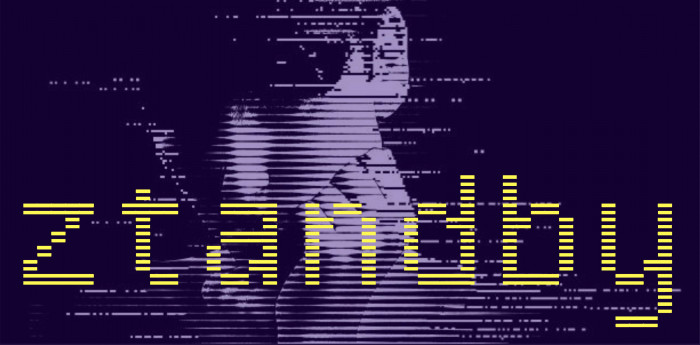
• Initially inspired by SB Standard font (2013, Craig Staiton) with many modifications and recreated glyphs... And made to saving half the ink when you print your text with it, which is very important in today's times, you know :))
Initially inspired by SB Standard font (2013, Craig Staiton) with many modifications and recreated glyphs... And made to saving half the ink when you print your text with it, which is very important in today's times, you know :))
@elmoyenique - Congratulatoins on the Top Pic!  Back in the day, @Frodo7 would often comment the same thing -- saving ink -- on certain fonts designed like this.  ;^)
Hey, if you go to pixel size in the preview some of the letters don't seem to be as "sharp" as they should be for a pixel font. Possible uneven spacing issue somewhere, on the lowercase f or g maybe? Looks to be where it starts.
Dear @Noah F. Ross: It may be the preview, but I see it well, a little disturbing in those letters f and g and also with the e, but all well in general... Thanks for looking at it so closely and your always constructive comments, pal.